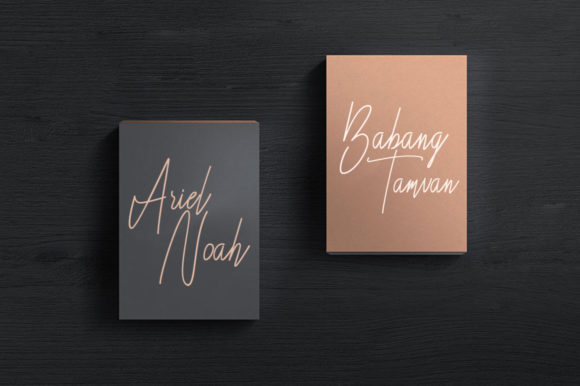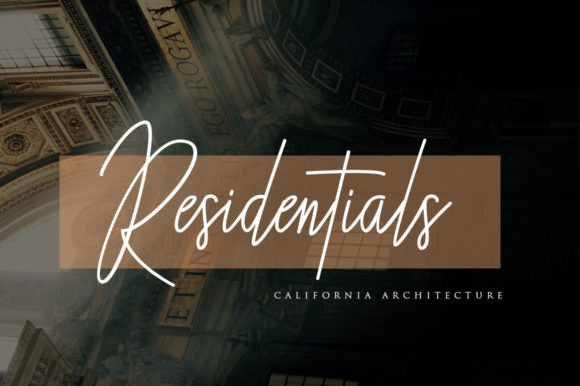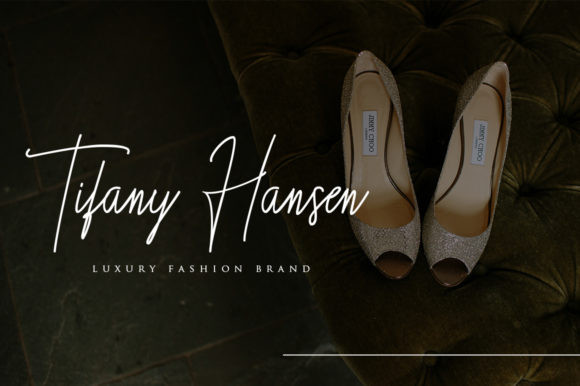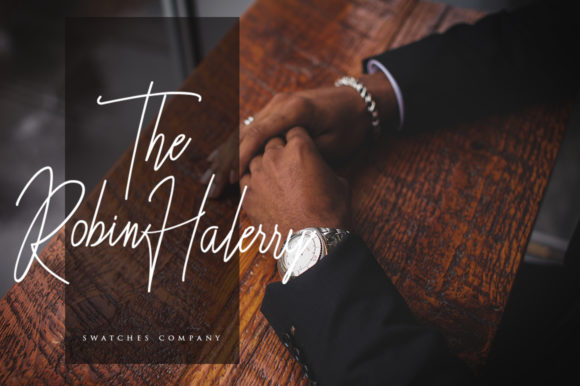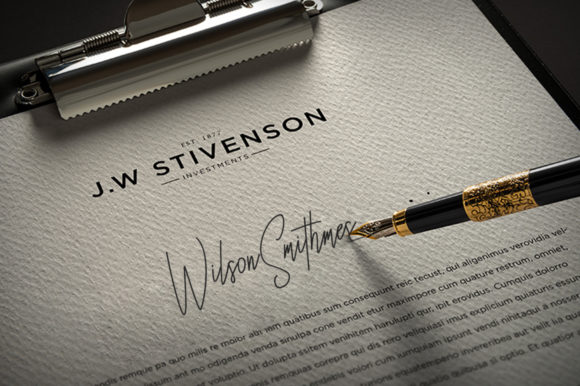
Introducing Besttones Font: Elevate Your Designs with Luxurious Signature Style
In the world of design, fonts play a crucial role in conveying the tone and personality of a brand or project. For those seeking to add a touch of luxury and sophistication, the Besttones Font is an exceptional choice. Inspired by stylish handwriting, Besttones is a versatile signature font that can elevate a wide range of designs, from logos and branding to invitations, stationery, wedding designs, and more.
The Inspiration Behind Besttones
Besttones Font draws its inspiration from the art of stylish handwriting, bringing a sense of elegance and refinement to any design. The font’s creator aimed to capture the fluidity and expressiveness of handwritten script, resulting in a typeface that feels both personal and luxurious. Each letterform is carefully crafted to convey a sense of sophistication, making Besttones perfect for designs that require a high-end feel.
Key Features of Besttones Font
- Luxurious Signature Style: Besttones boasts a distinctive, high-end aesthetic that adds a touch of class to any design.
- Versatile Usage: Suitable for a wide range of applications, including logos, branding, invitations, stationery, wedding designs, and more.
- Handwritten Inspiration: Inspired by stylish handwriting, Besttones brings a personal and expressive feel to your designs.
- Elegant Letterforms: Each character is carefully designed to convey sophistication and refinement.
Use Cases for Besttones Font
Besttones Font is incredibly versatile, making it suitable for various design projects. Here are some of the most popular use cases:
Logos and Branding
For businesses looking to establish a luxurious brand identity, Besttones is an excellent choice. Its unique, handwriting-inspired style can help your logo stand out and convey a sense of high-end quality.
Invitations and Stationery
Add a touch of elegance to your invitations, greeting cards, and stationery with Besttones. Its sophisticated aesthetic ensures that your correspondence makes a lasting impression.
Wedding Designs
Besttones is perfect for wedding designs, including invitations, save-the-date cards, and wedding stationery. Its luxurious feel helps create a sense of romance and sophistication.
Tips for Using Besttones Font Effectively
To get the most out of Besttones Font, consider the following tips:
- Pair with Neutral Backgrounds: Allow Besttones to shine by pairing it with neutral backgrounds that don’t compete for attention.
- Experiment with Colors: Try different color schemes to find the perfect match for your design. Besttones looks stunning in metallic colors, pastels, and rich jewel tones.
- Use for Headlines and Titles: Besttones is ideal for headlines and titles, where its luxurious style can make a significant impact.
Besttones Font is a luxurious signature font that can elevate your designs with its stylish, handwriting-inspired aesthetic. Whether you’re working on logos, branding, invitations, stationery, wedding designs, or more, Besttones is an excellent choice. Its versatility, elegance, and sophistication make it a valuable addition to any designer’s toolkit.